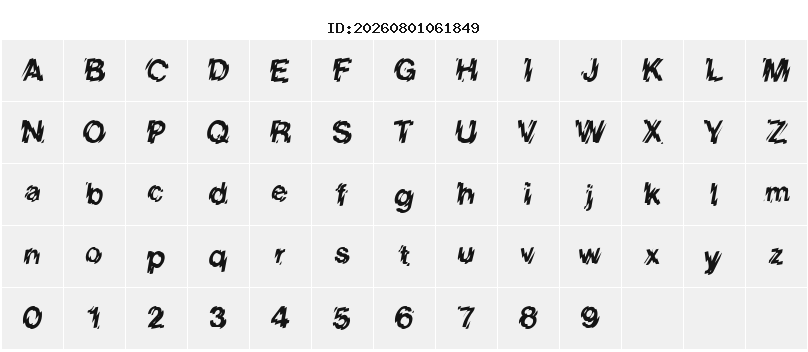
LORENZO Preview
• Font Name: LORENZO
About LORENZO.ttf
LORENZO.ttf is a modern, elegant sans-serif font designed for ultimate readability and visual harmony. Perfect for branding, headlines, web design, and print materials.